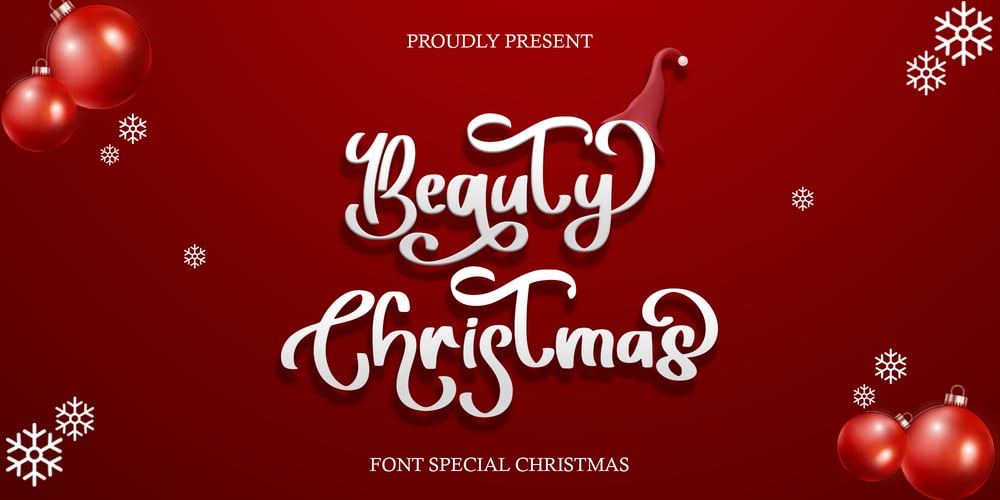
Beauty Christmas
Beauty Christmas font
Beauty Christmas Font Family was designed by Alif Ryan Zulfikar and published by Sakha Design. Beauty Christmas contains 2 styles and family package options. Christmas Festive is a sweet and adorable handwritten script font. No matter the topic, this font will be an incredible asset to your fonts’ library, as it has the potential to elevate any creation.